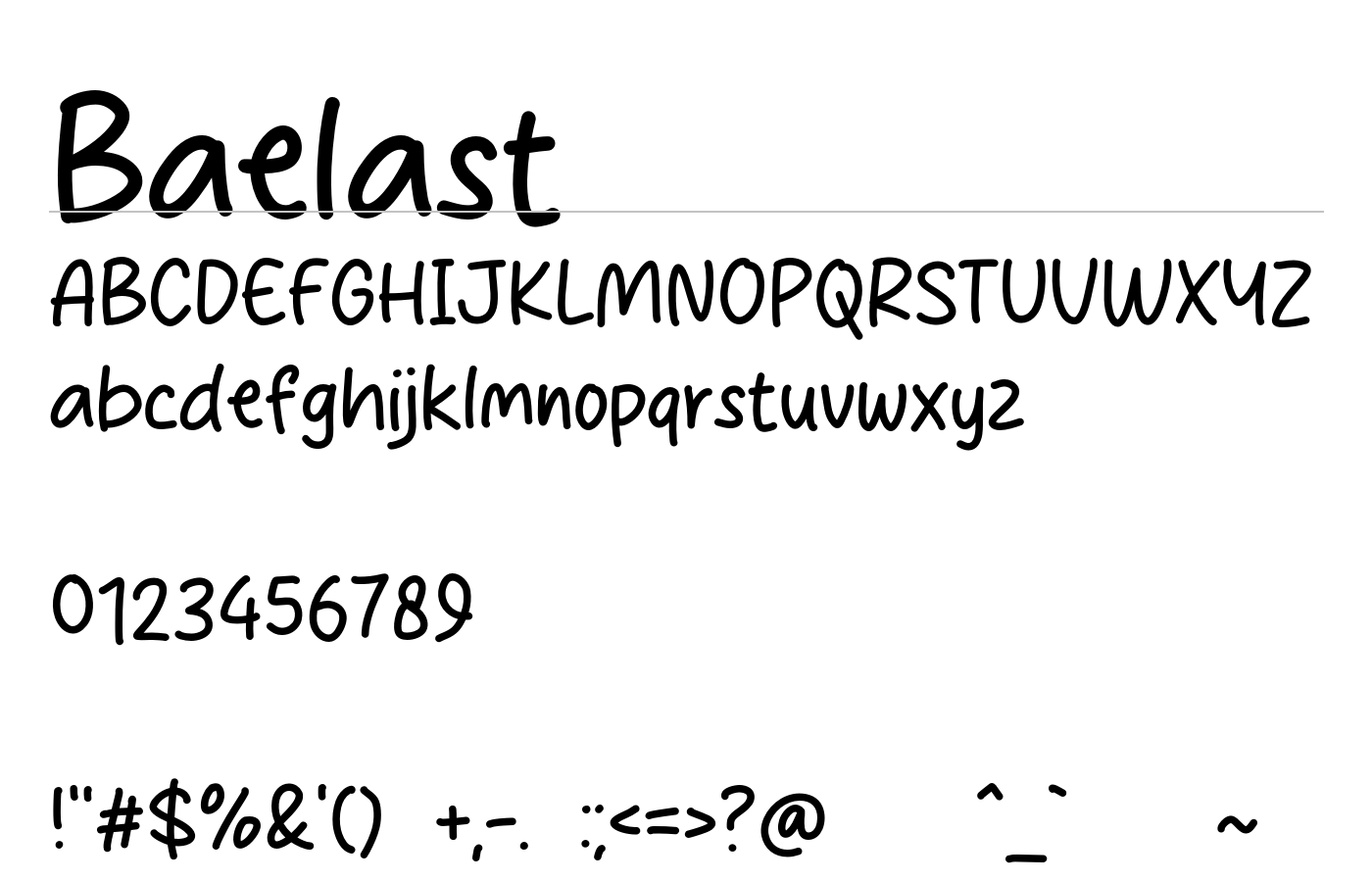
Baelast is a playful and casual handwritten sans serif font with a friendly and approachable style. It features smooth, rounded strokes with a slightly uneven, natural flow that gives it warmth and personality, making it ideal for informal and creative designs. This font works well for branding, invitations, children’s projects, and any context where a personal, relaxed touch is desired.
Baelast Font
About Baelast Font